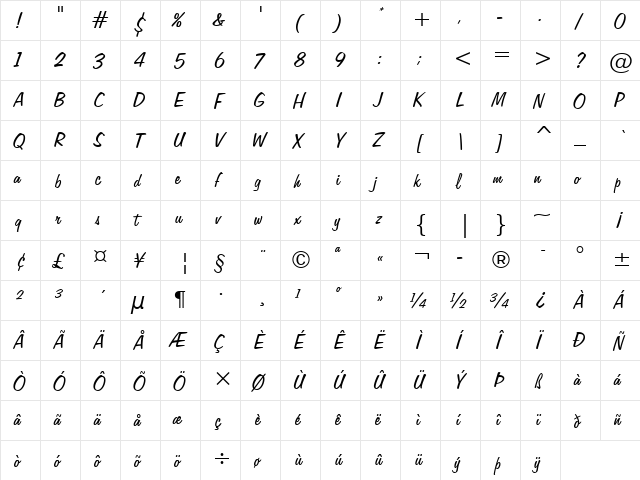
HW Freehand 575 BT Regular
Design Context for HW Freehand 575 BT Typeface
HW Freehand 575 BT brings a calligraphic fluidity to the page — its connecting strokes and expressive curves give it an unmistakably human quality.
Font Pairing: Combine HW Freehand 575 BT with a simple geometric sans for maximum contrast — the tension between flowing curves and clean structure is a classic typographic pairing.
Pro Tip: Pair HW Freehand 575 BT with a clean sans-serif for supporting text. The contrast between fluid script and geometric structure creates an elegant typographic hierarchy.